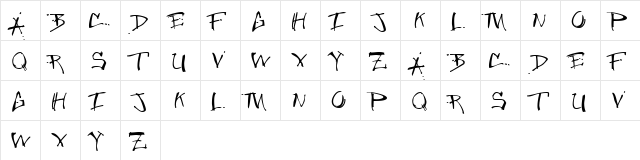
Jungle Clean
| Style | Clean |
Design Context for Jungle Typeface
Jungle is a composed and adaptable typeface that performs quietly and consistently across a wide range of design contexts.